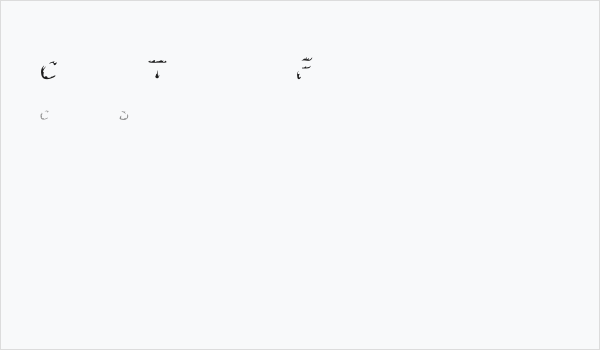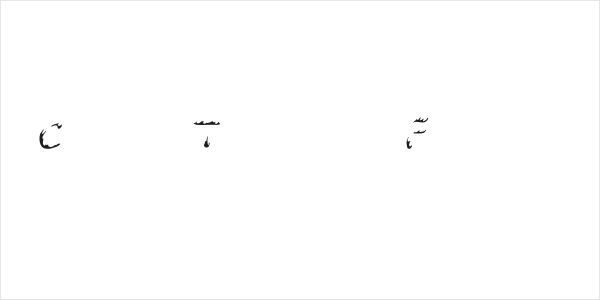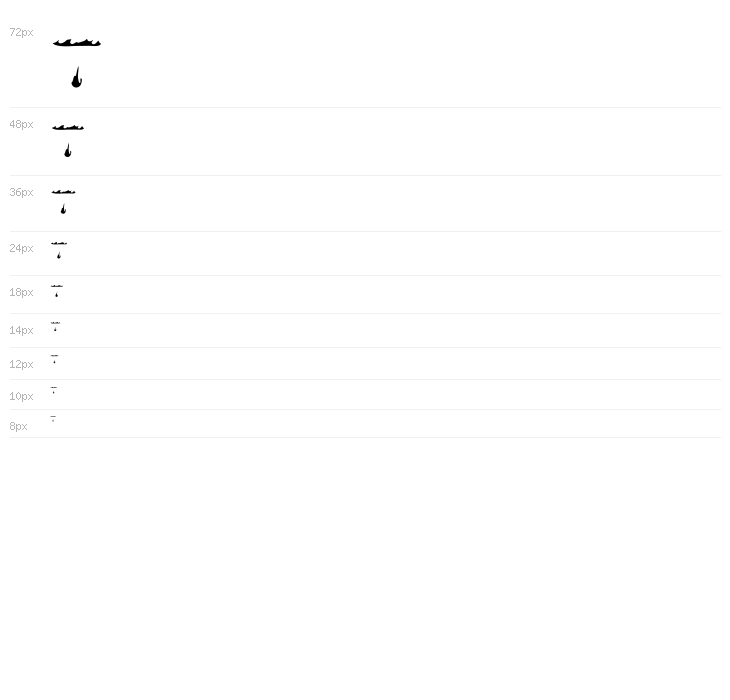
Comic Tragedy Flames Font
Comic Tragedy Flames Description
This font features a dramatic and fiery design, with each character appearing as if it is engulfed in flames. The strokes are irregular and jagged, creating a sense of movement and intensity. The uppercase letters have a bold presence, while the lowercase letters maintain the same fiery theme. The numbers and special characters are equally dynamic, adding to the overall cohesive look. This font is highly decorative and captures attention with its unique style.
| Proposed Projects | Ideal for projects requiring a dramatic flair, such as event posters, video game titles, or Halloween-themed designs. |